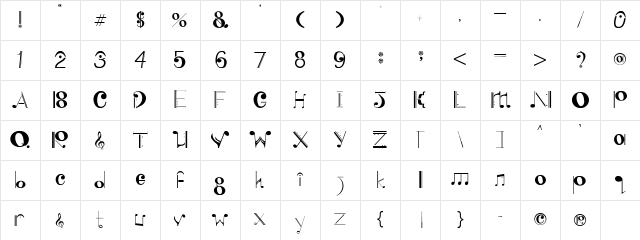
Sing With Me Regular
Foundry: Oo Yi Lo
Designer: Oo Yi Lo
Design Context for Sing With Me
Sing With Me is a composed and adaptable typeface that performs quietly and consistently across a wide range of design contexts.